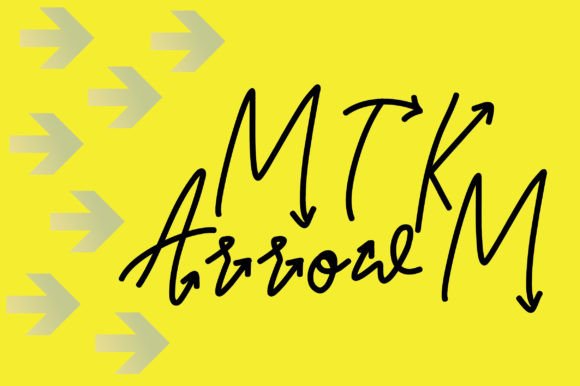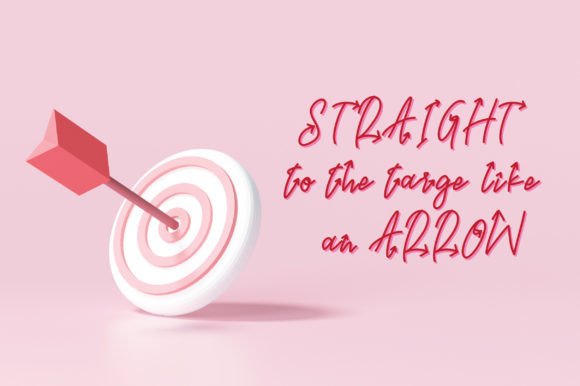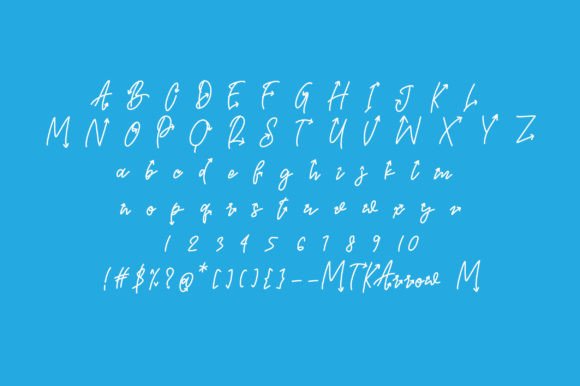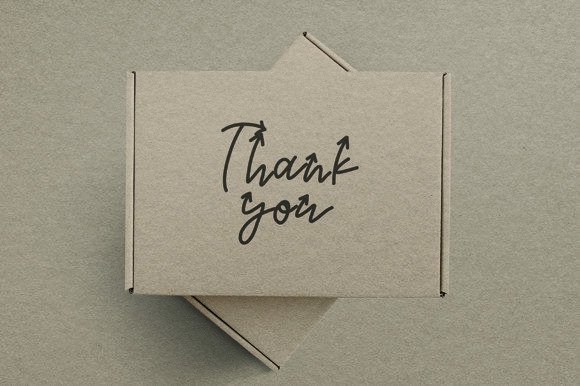
Mtk Arrowm Font
About Mtk Arrowm Font
“MTK ArrowM” is a fun and quirky handwritten font that brings a playful and lighthearted vibe to your creative projects. This font is the perfect addition to your crafty ideas, and you’re sure to be delighted with the results it brings to your design endeavors.
The charm of “MTK ArrowM” lies in its fun and quirky lettering. Its playful characters and unique style create a visually engaging and delightful experience, making it an ideal choice for projects that aim to convey a sense of creativity and whimsy.
One of the standout qualities of “MTK ArrowM” is its confidence-inspiring design. Whether you’re using it for crafting, designing eye-catching posters, adding a touch of fun to web graphics, or infusing creativity into various other projects, “MTK ArrowM” integrates seamlessly into your creative vision.
This font’s ability to add a fun and quirky touch to your crafty ideas sets it apart. Whether you’re working on personal or professional endeavors, “MTK ArrowM” brings a unique and enjoyable quality to your work that resonates with a diverse audience.
In summary, “MTK ArrowM” is more than just a font; it’s a playful and versatile creative tool that can enhance your crafty projects. Whether you’re a professional designer or someone passionate about crafting and design, “MTK ArrowM” is here to make your creative ideas come to life with its fun and quirky script. Embrace the whimsical charm of “MTK ArrowM” and watch your creativity flourish with delightful results.